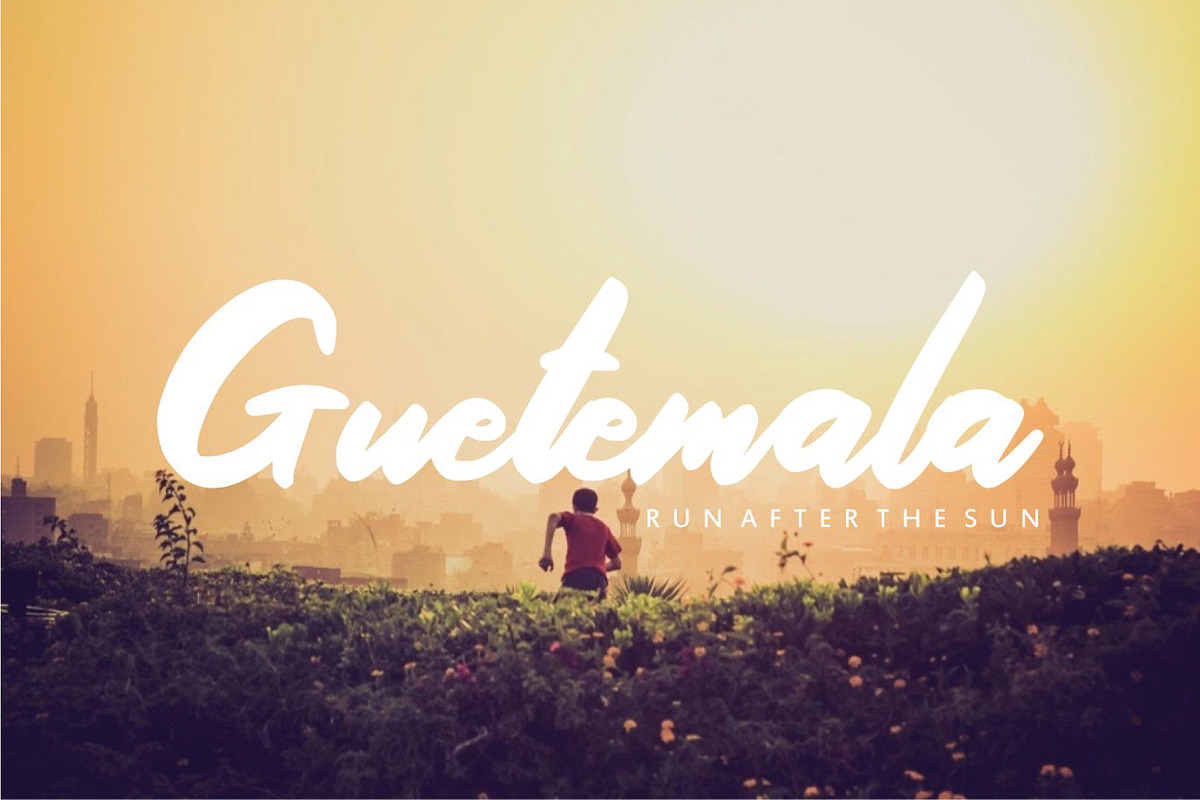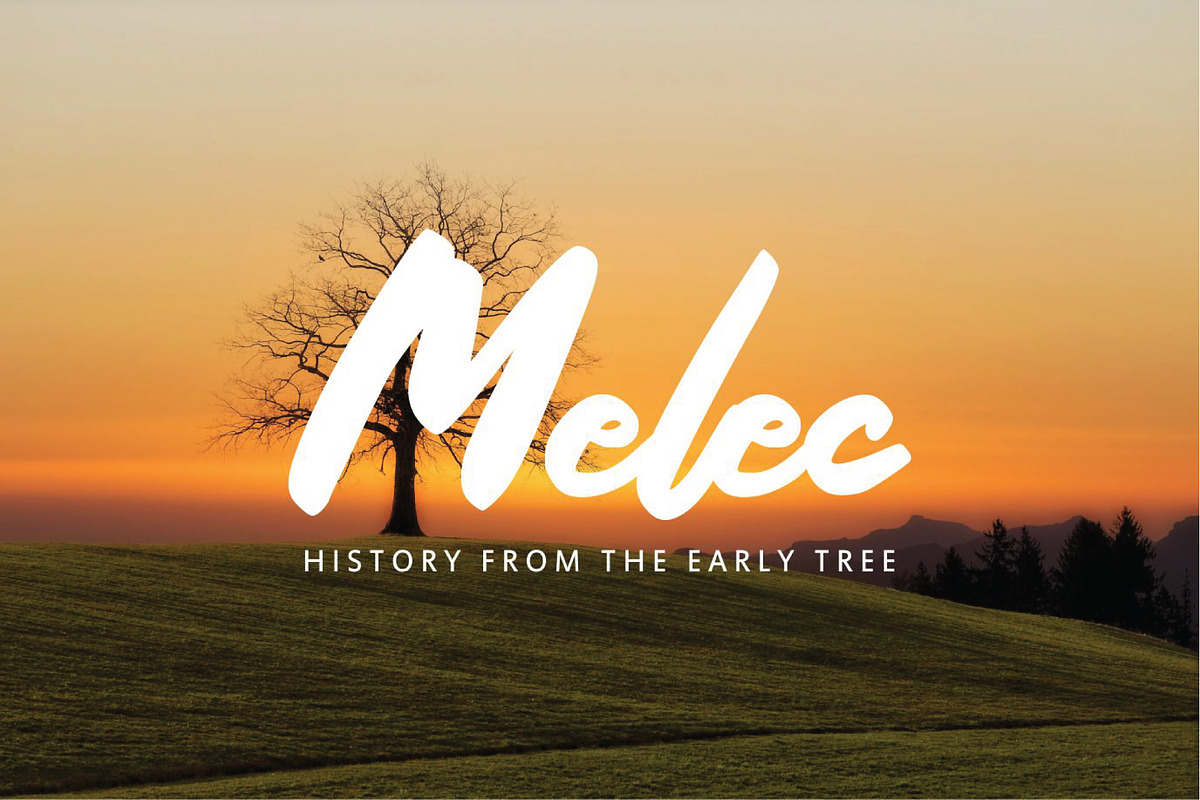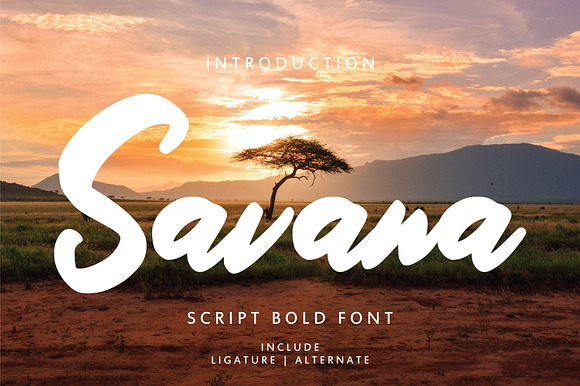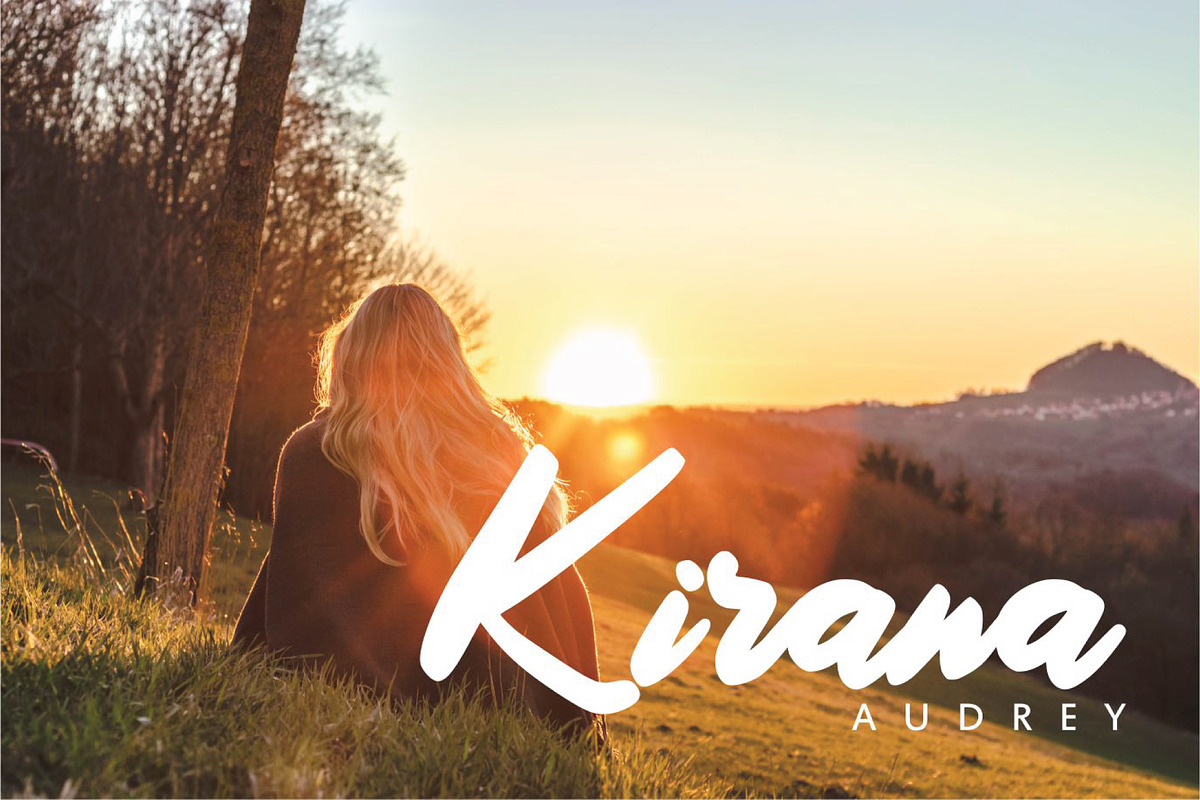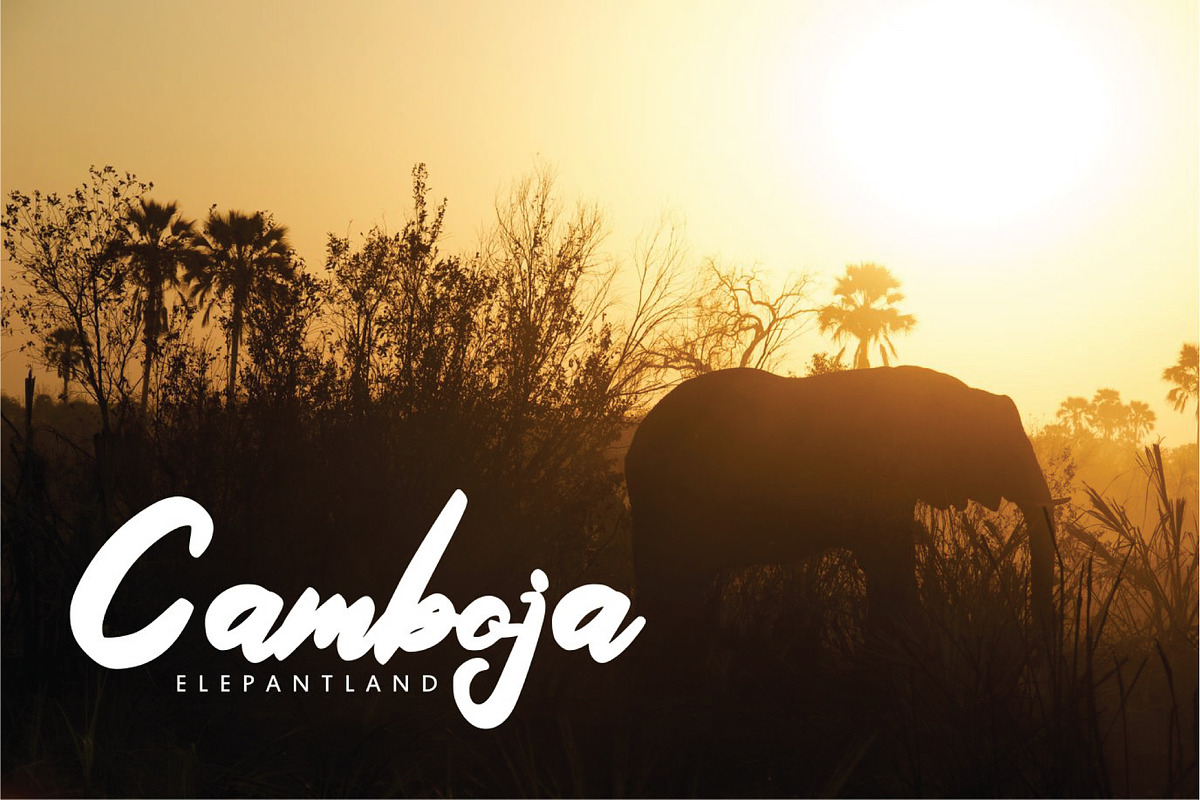
Savana - Script Bold Font
Savana - Script Bold Font with a calligraphy style, So beautiful on invitation like greeting cards, branding materials, business cards, quotes, posters, and more!
The alternative characters were divided into several features such as Stylistic Sets, Stylistic Alternates, Contextual Alternate, SWASH and Ligature.
- Alternates and Ligatures
Why Savana - Script Bold Font is worth a look
Savana - Script Bold Font by KAZ by IanMikraz Studio fits naturally into Branding, posters, packaging, typography.